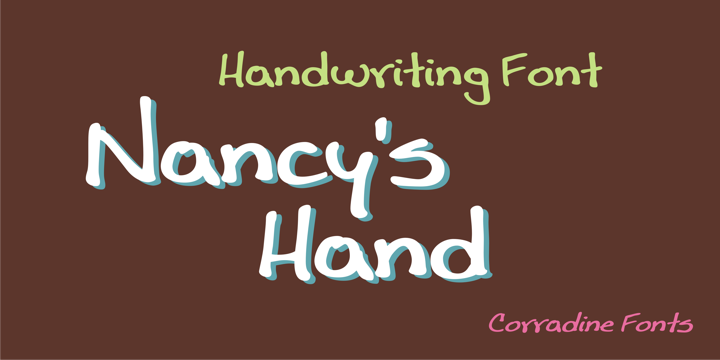
Nancy”s Hand Family
About Nancy”s Hand Family Font
Nancy’s Hand is a beautiful font family! It can be used for various purposes such as: headlines, book covers, posters, invitations and much more! Perfect for those who like to be creative!